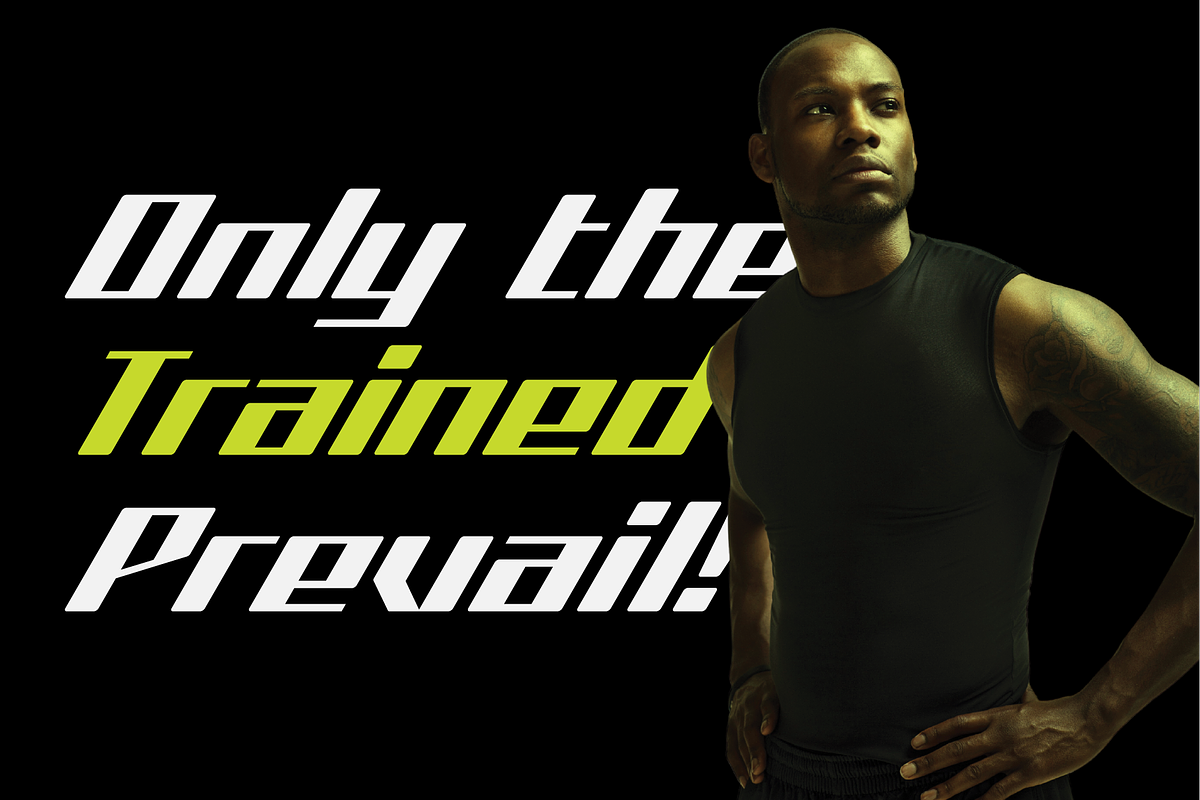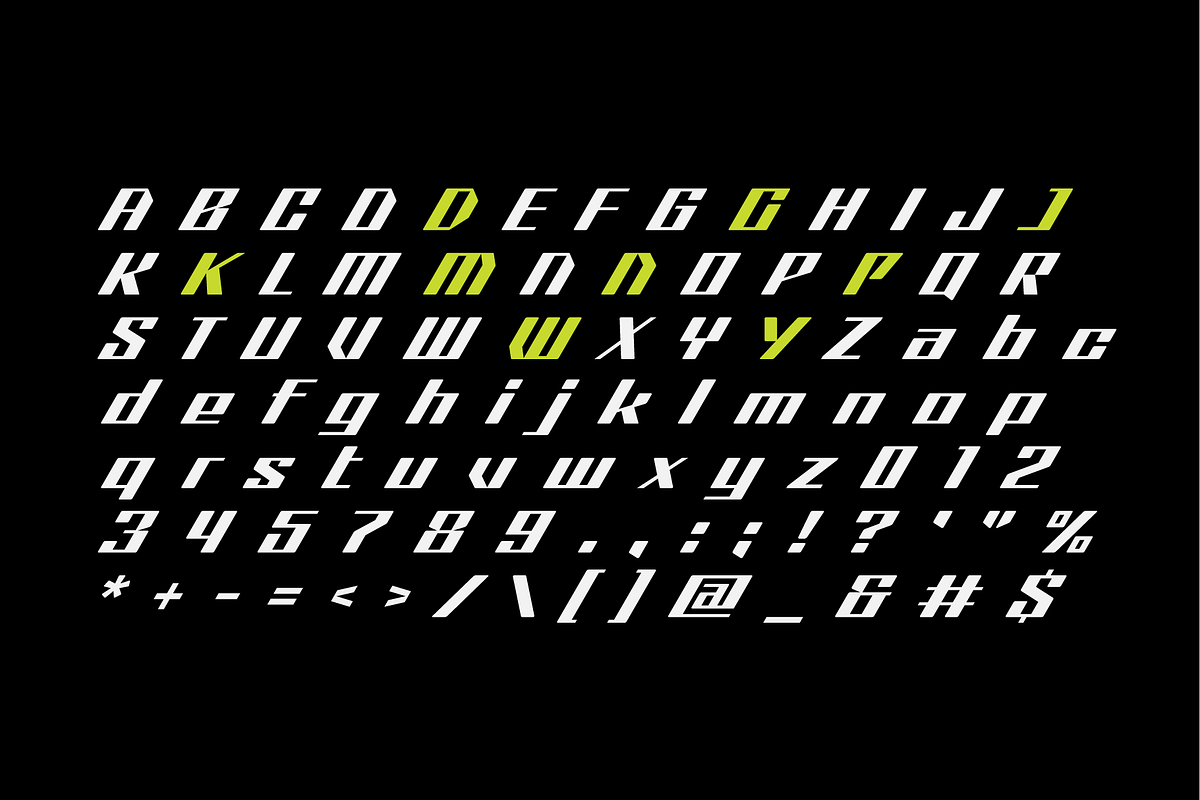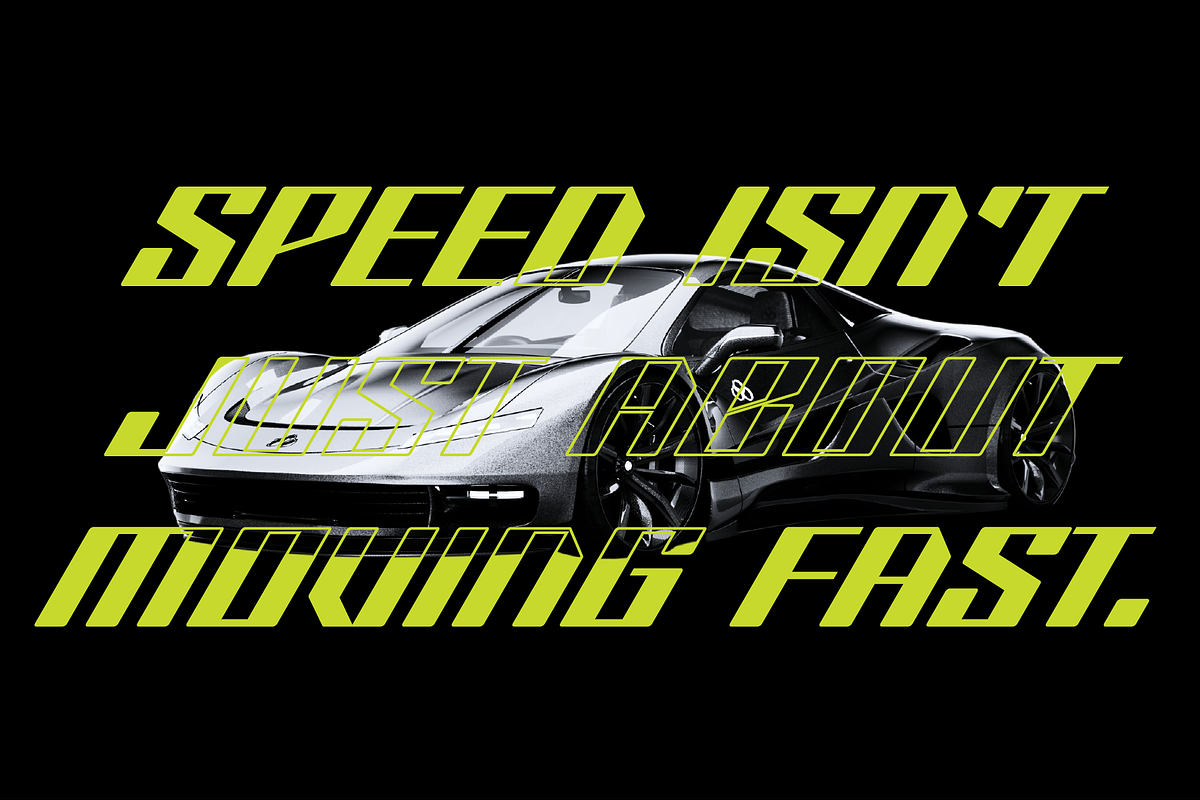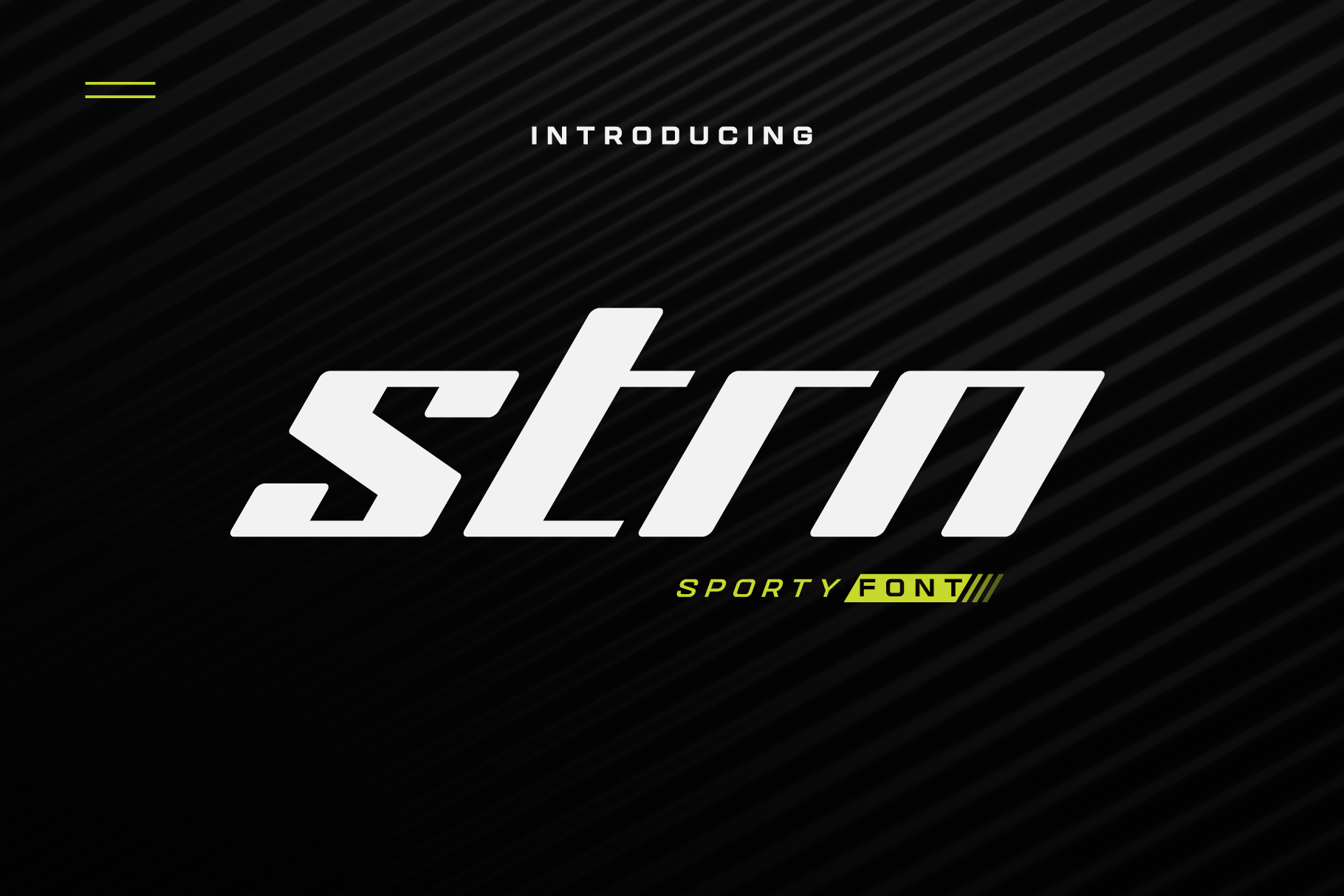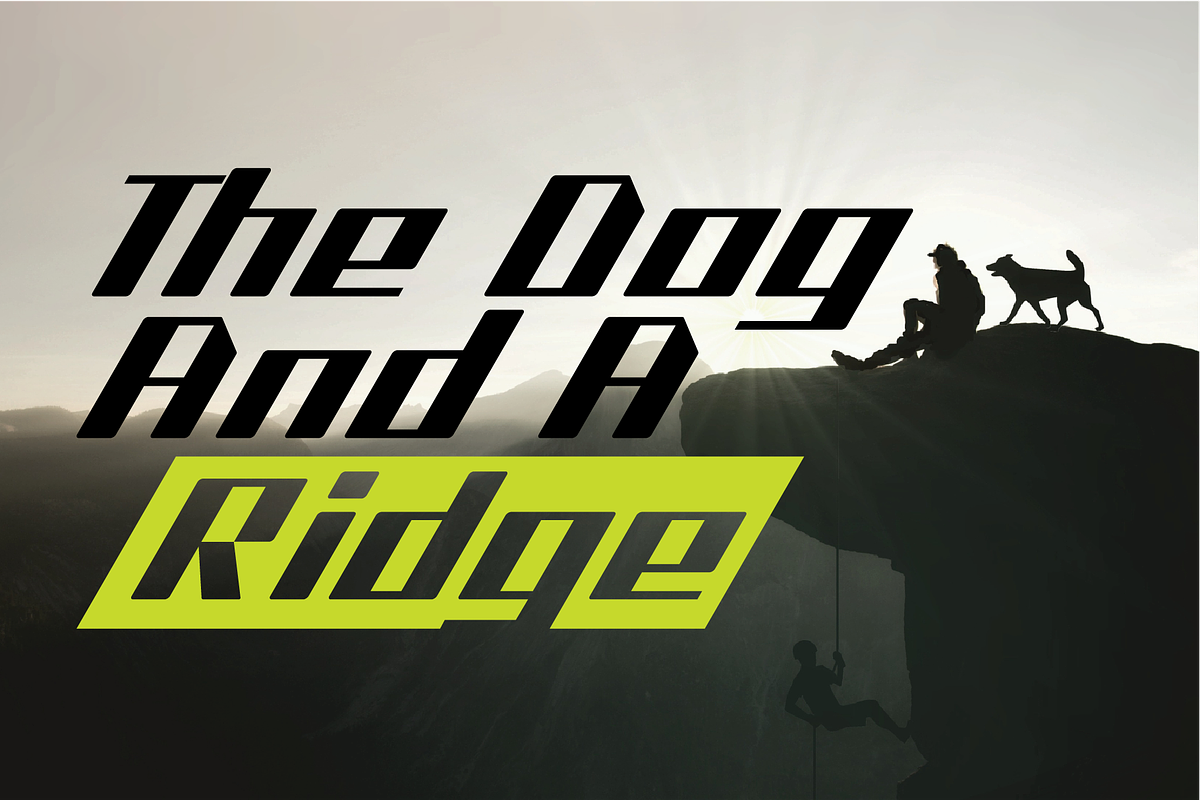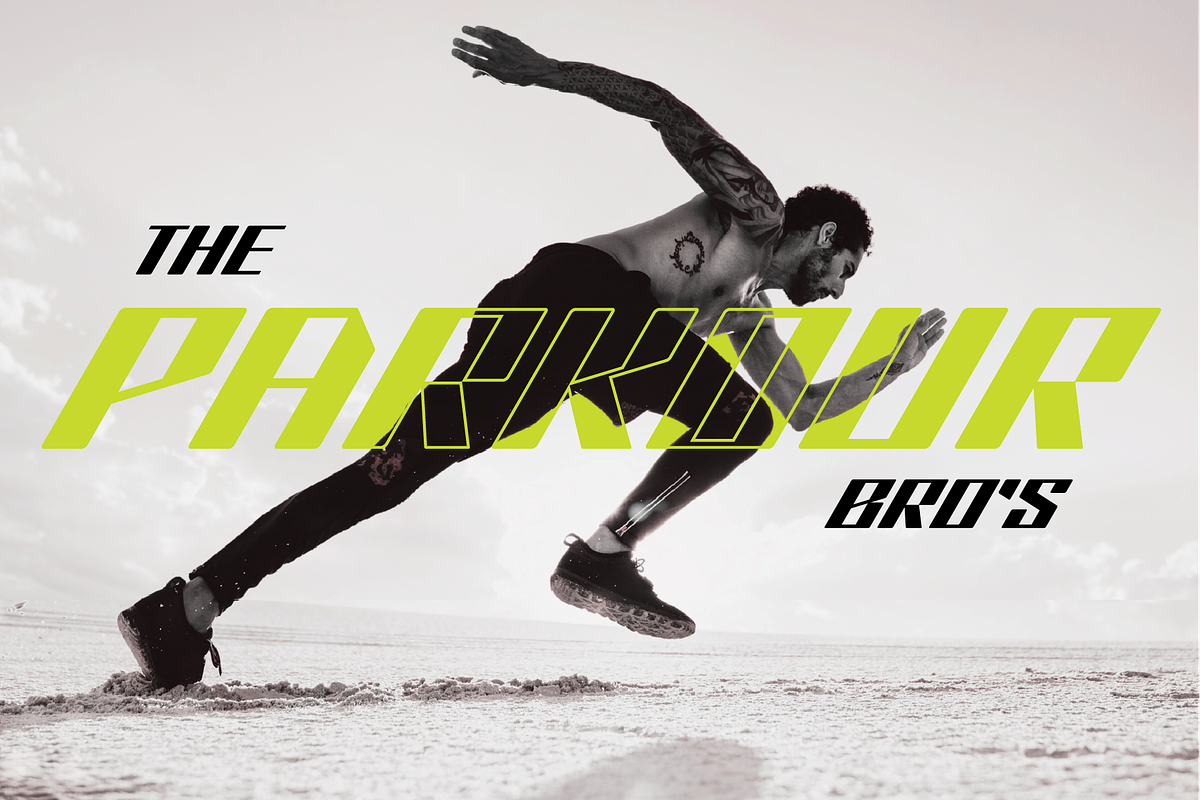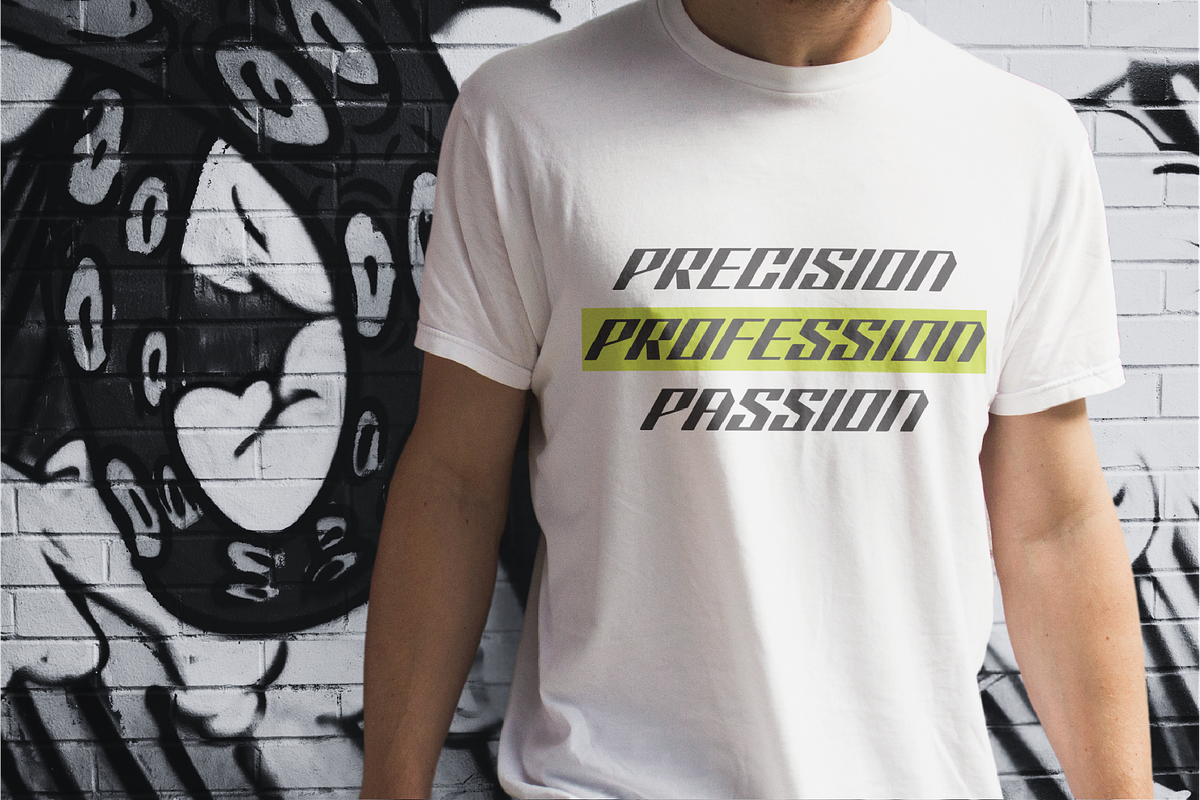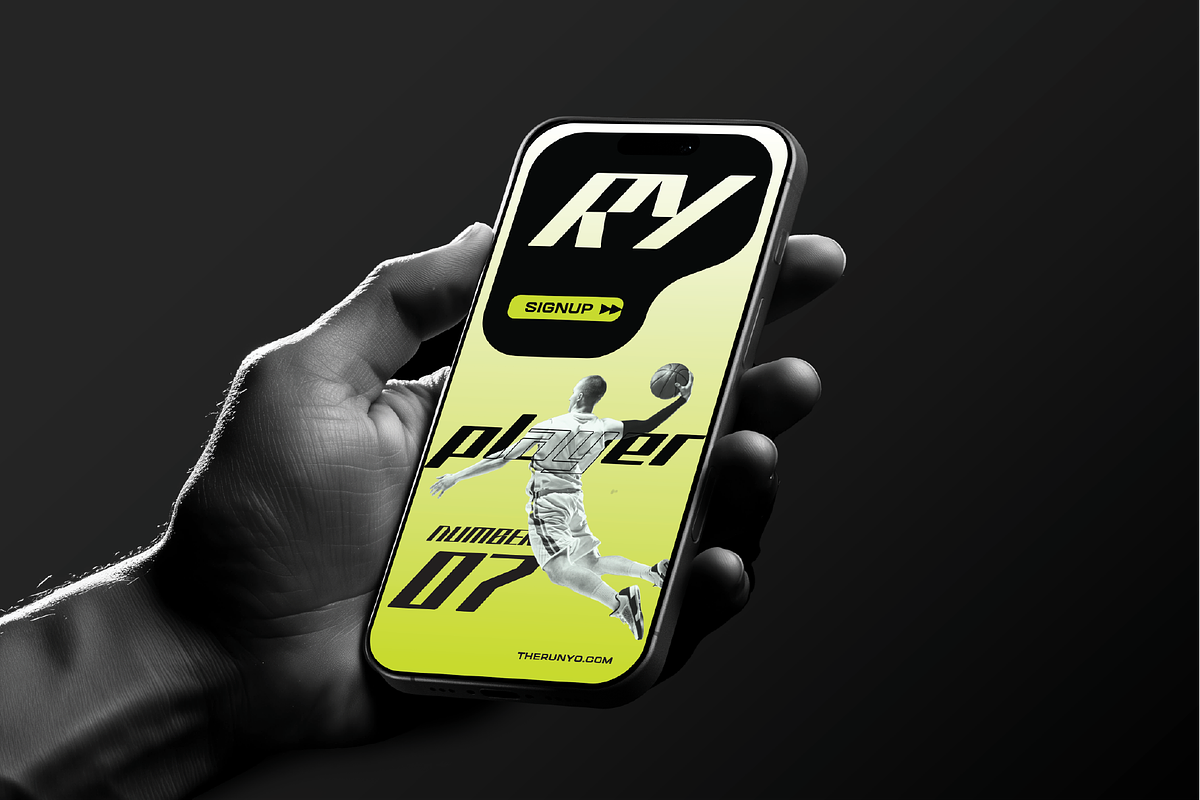
Strn-Sharp Edgy Sports Font
Strn is a high-speed, sporty font built for brands that move fast and think faster. Designed for athletic, automotive, and action-driven visuals, it features a fast, italicized stance and sharp angles that embody motion, agility, and strength. Ideal for sports branding, fitness apparel, and dynamic designs, Strn is the perfect choice for those who demand a bold, edgy, and futuristic typeface.